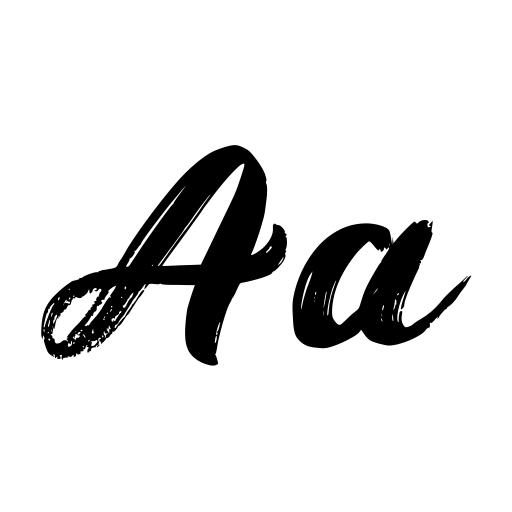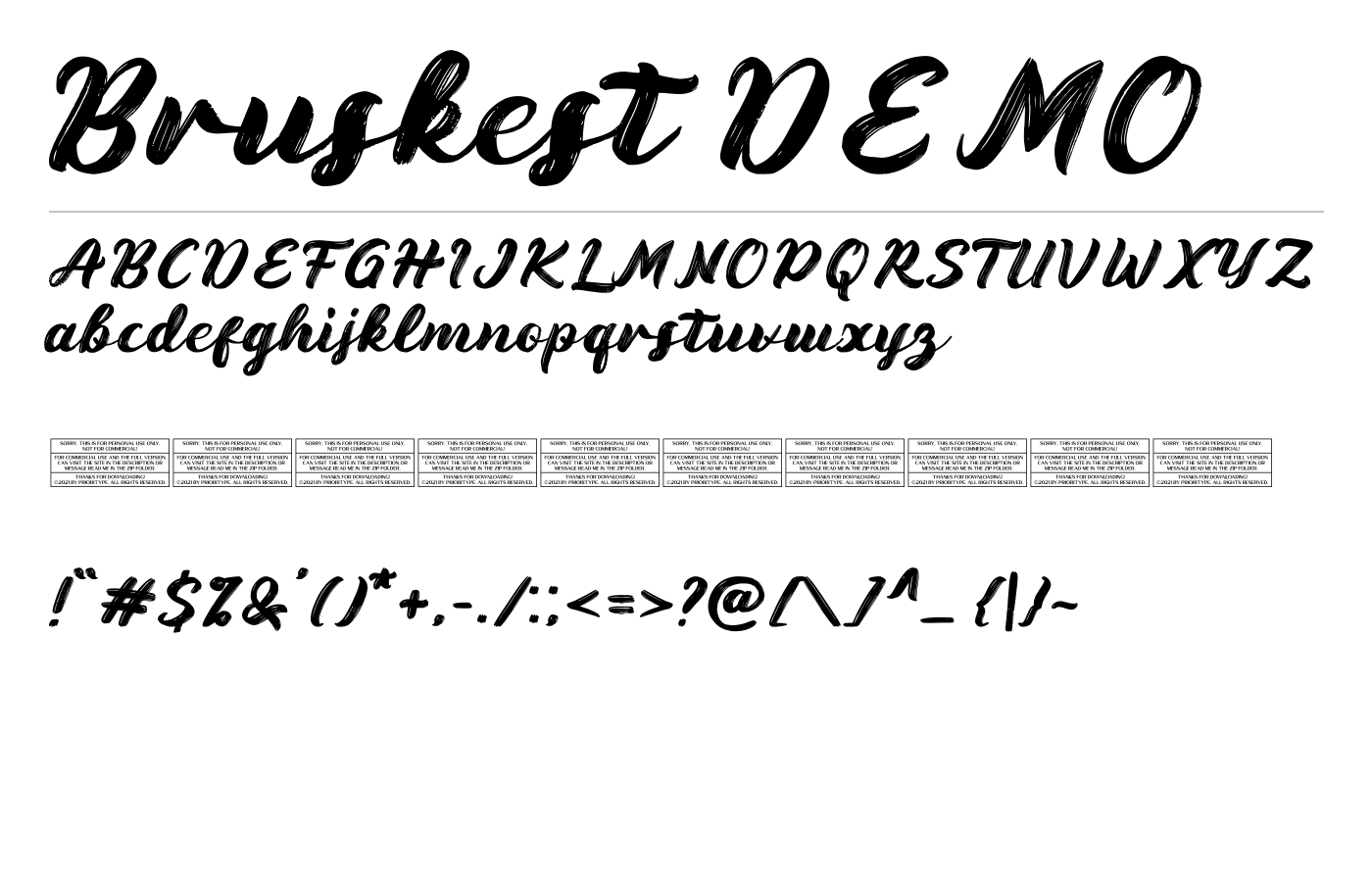
Bruskest DEMO is a bold, brush script font featuring lively, hand-painted strokes that give it an energetic and artistic feel. Its slightly condensed letterforms with varied stroke thickness and dynamic curves make it perfect for creative branding, posters, and headlines that need a personal, handcrafted touch. This font works well to convey a casual yet expressive personality in design projects seeking a modern, approachable vibe.
Bruskest DEMO Font
About Bruskest DEMO Font
| Font family | Bruskest DEMO Font |
| Designer | Prio Nurokhim Aji |